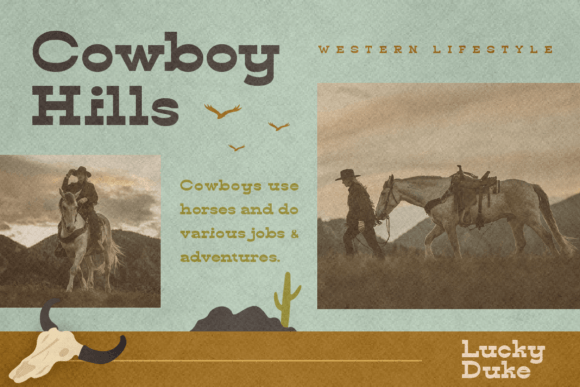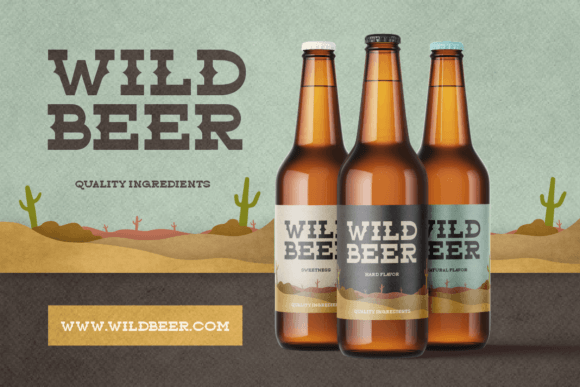
Lucky Duke Font
Lucky Duke is a western serif typeface inspired by cowboy wild west styles. This font is good for logo design, social media, movie titles, book titles, short text, and long text letters. It is also good for your secondary text.